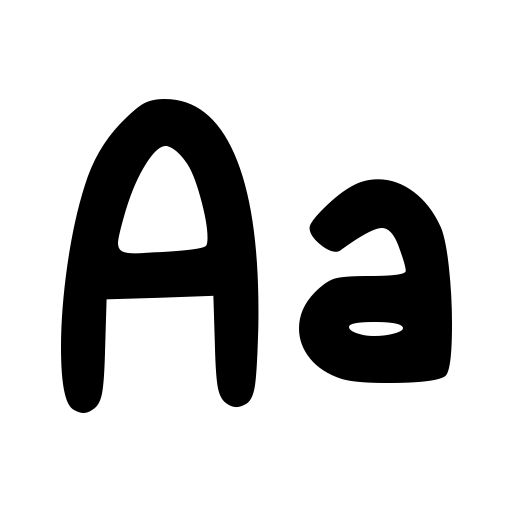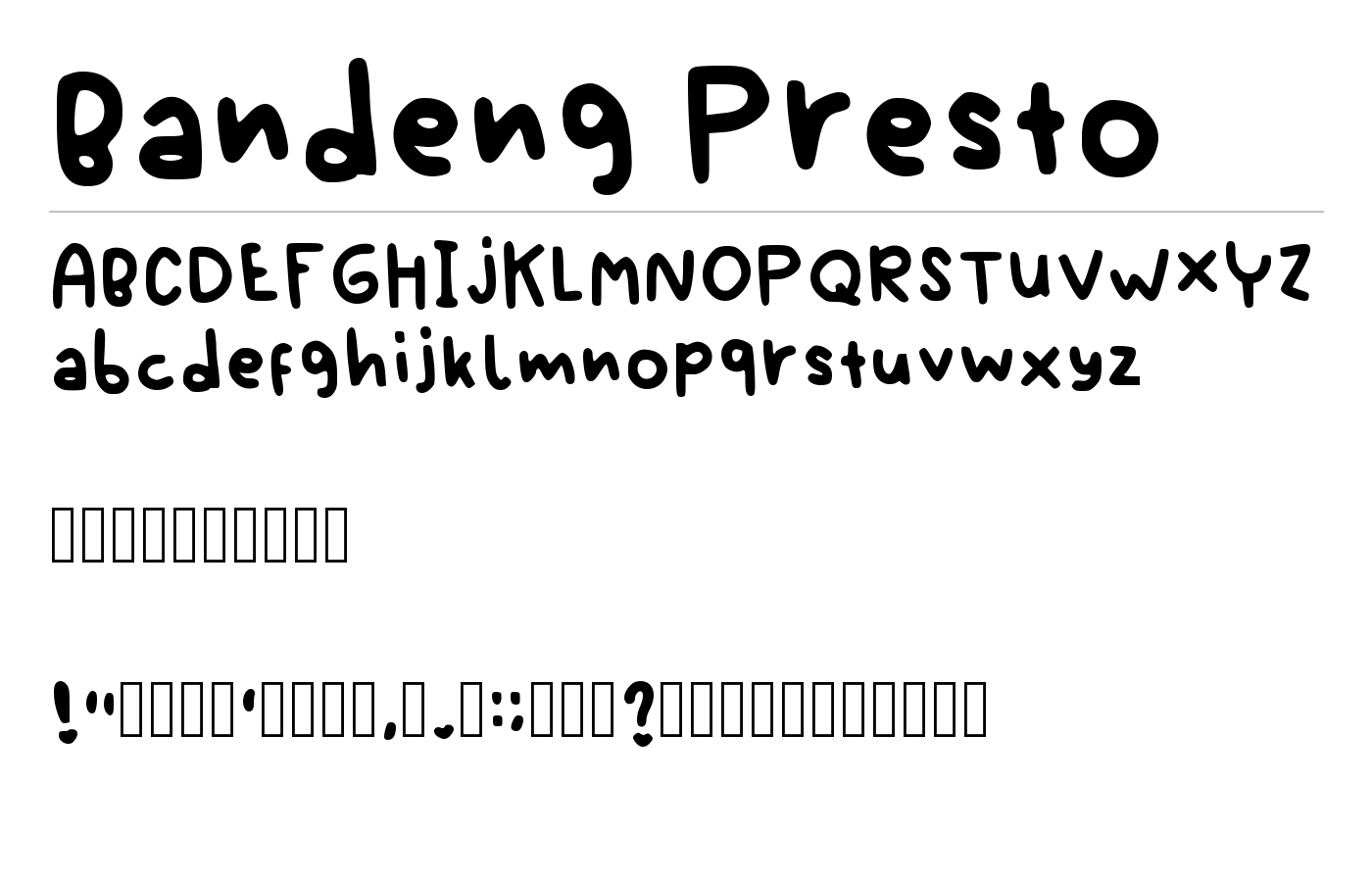
Bandeng Presto is a playful and casual sans serif font characterized by its rounded, hand-drawn letterforms and moderately tall x-height, which give it a friendly and approachable feel. Its uneven stroke widths and quirky shapes make it perfect for informal designs, children’s content, and creative projects that seek a fun, relaxed atmosphere. This font works well in logos, posters, and headlines where a cheerful, unique personality is desired.
Bandeng Presto Font
About Bandeng Presto Font